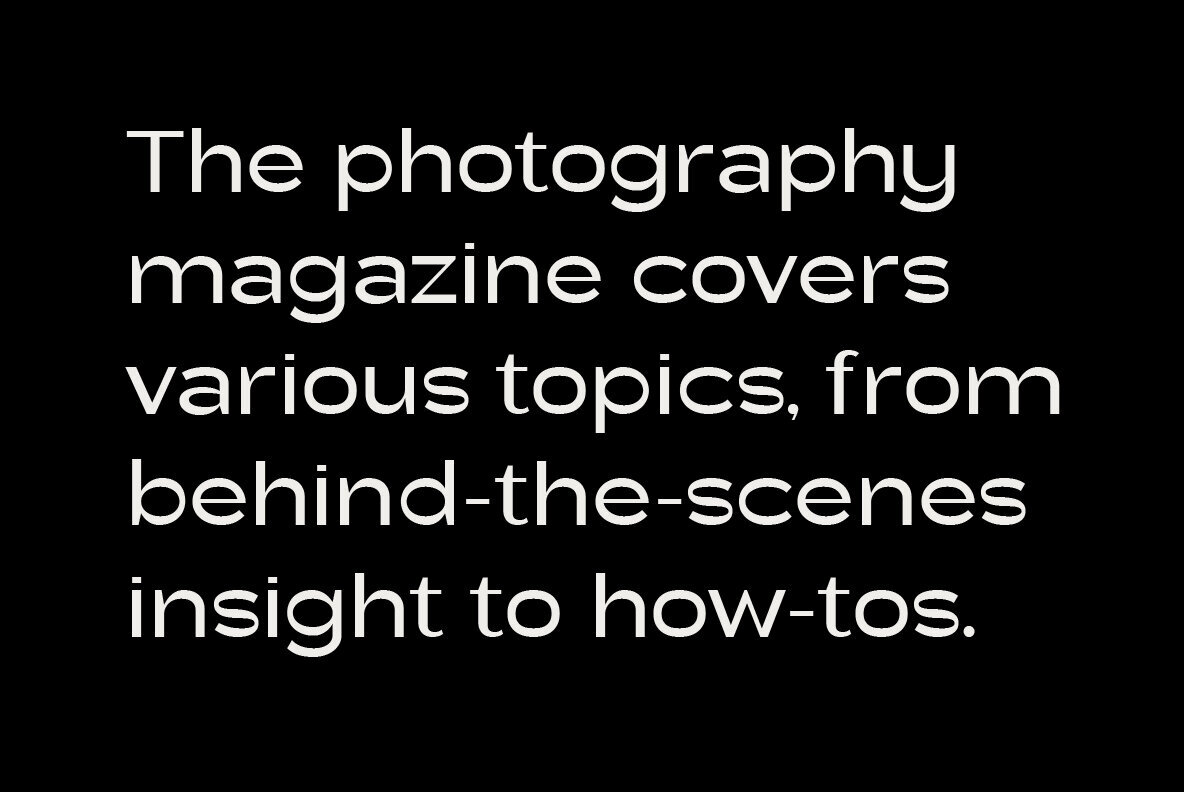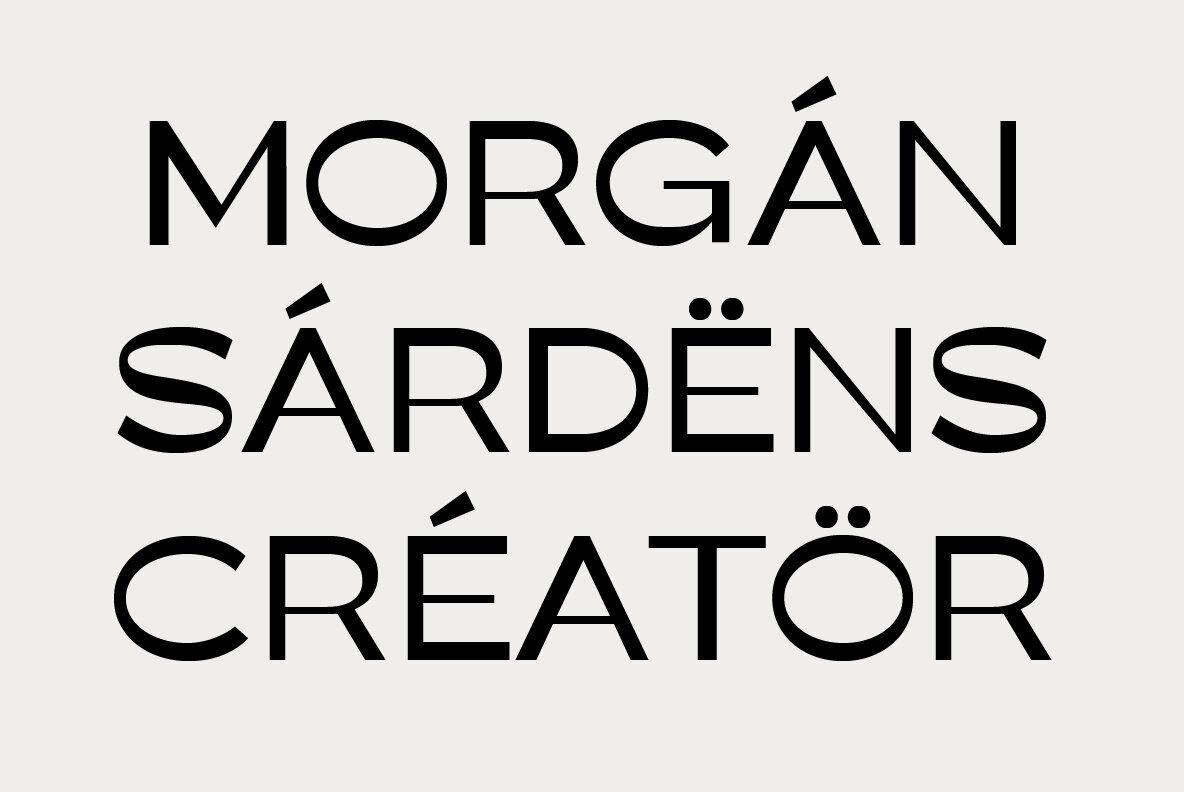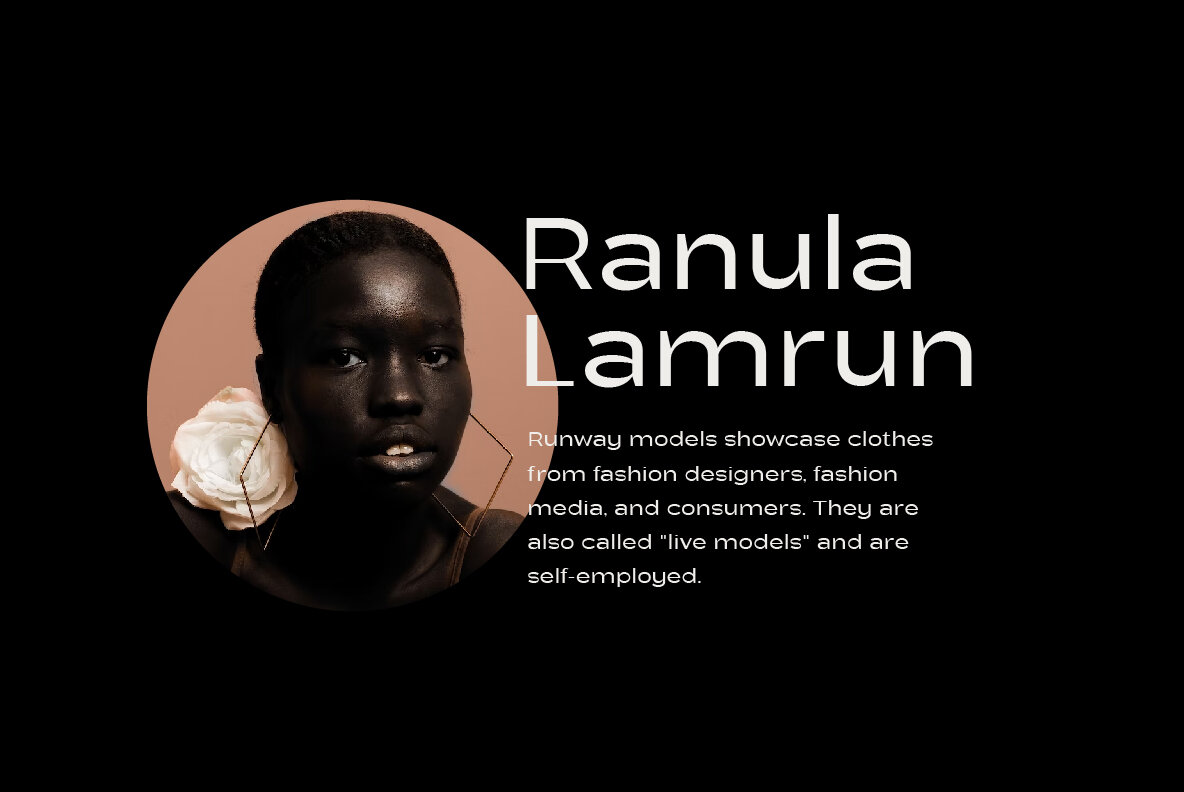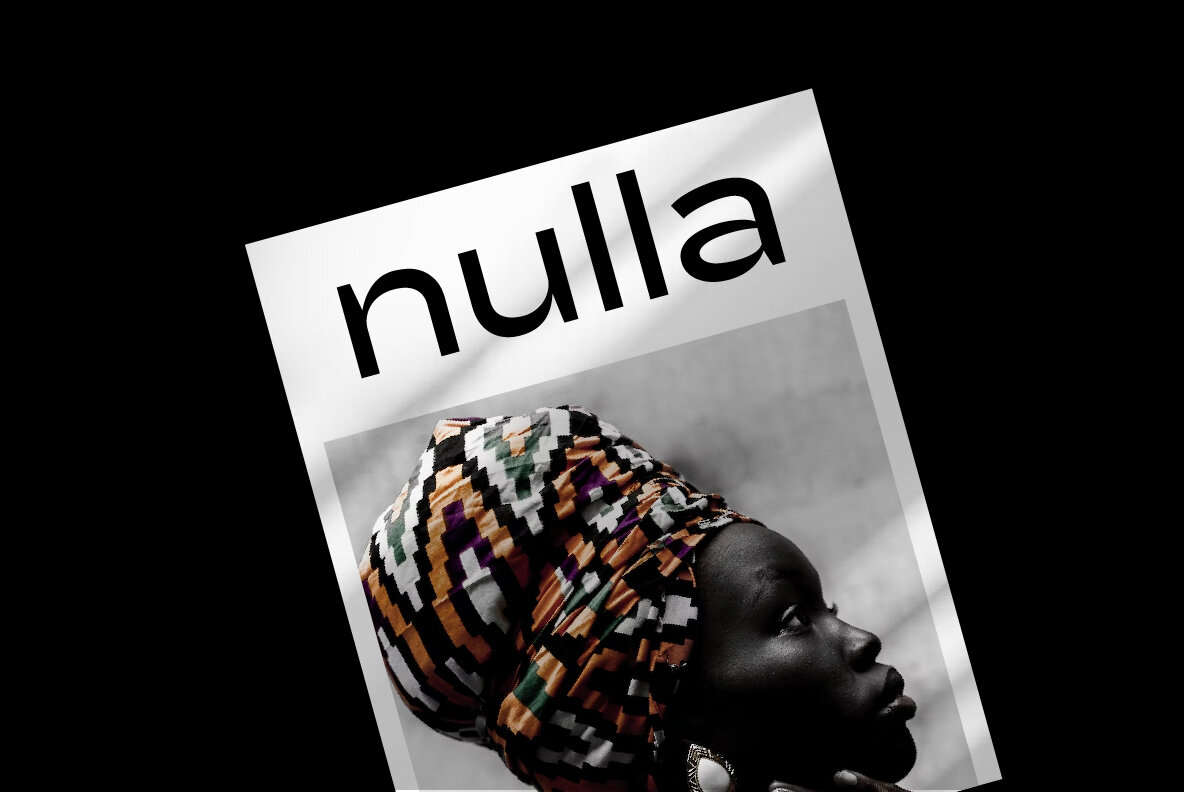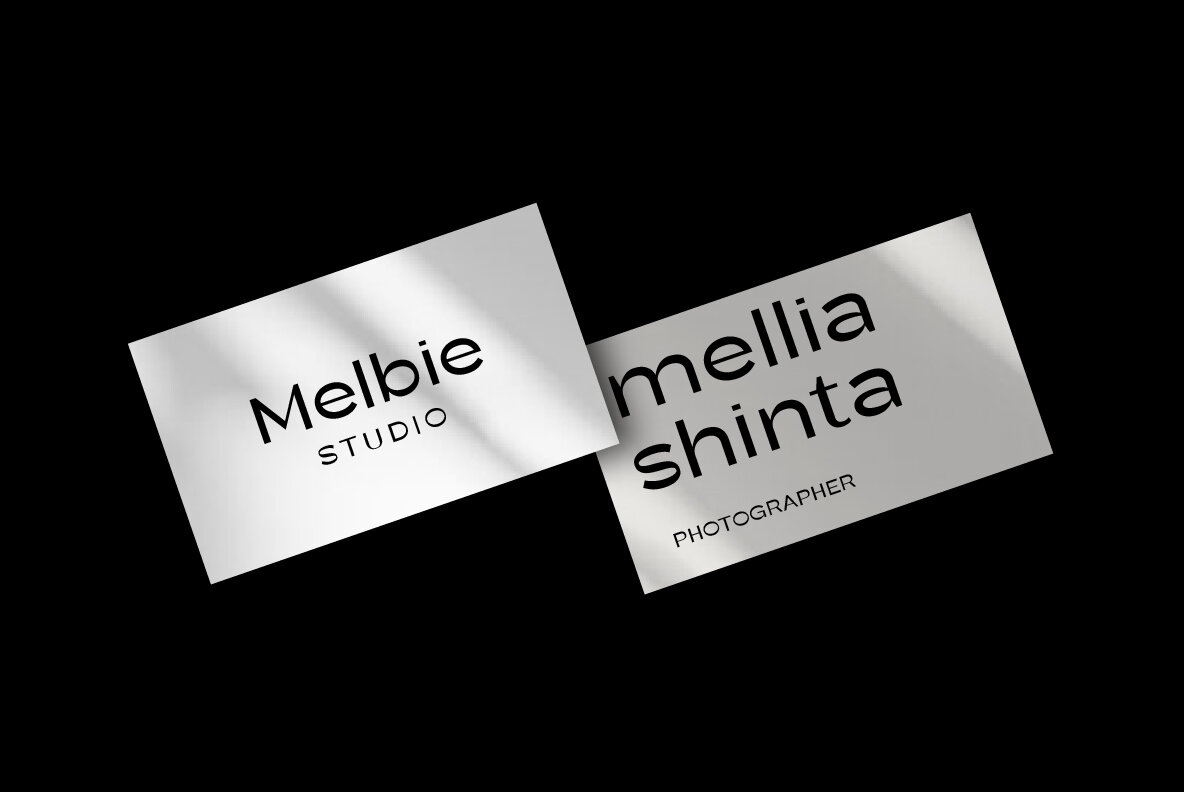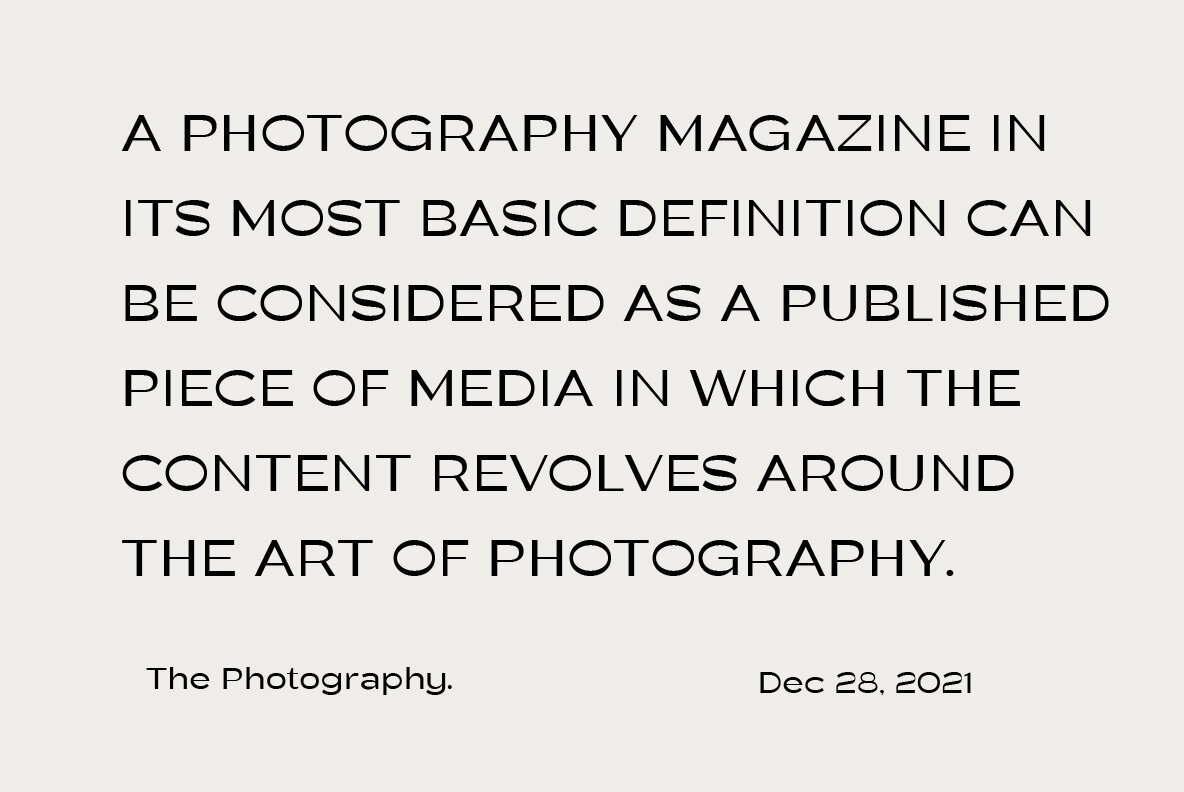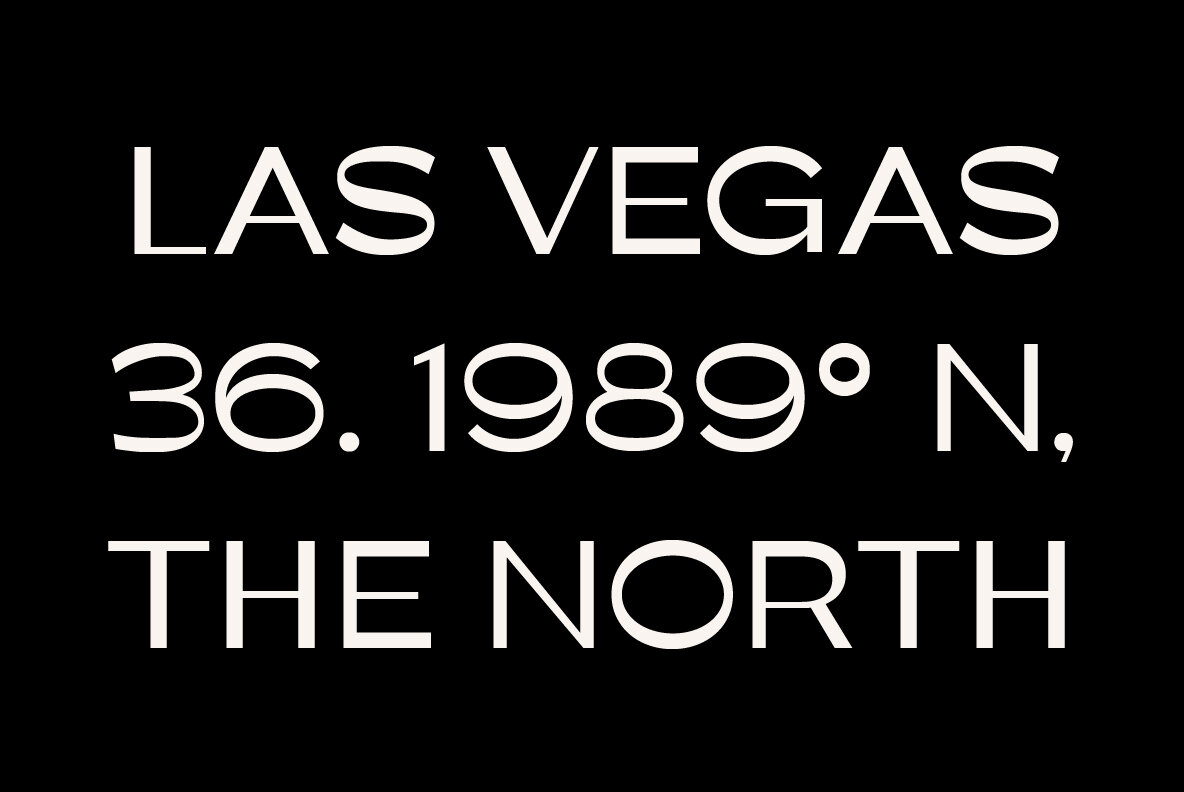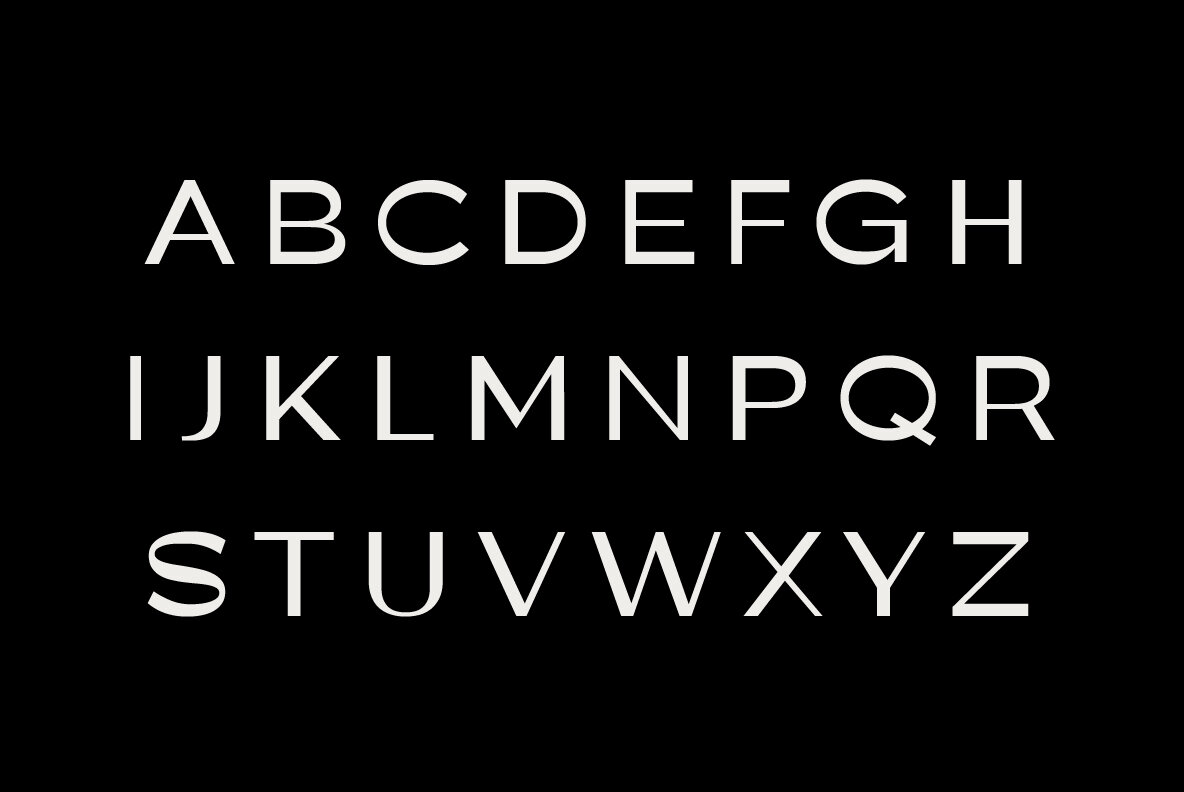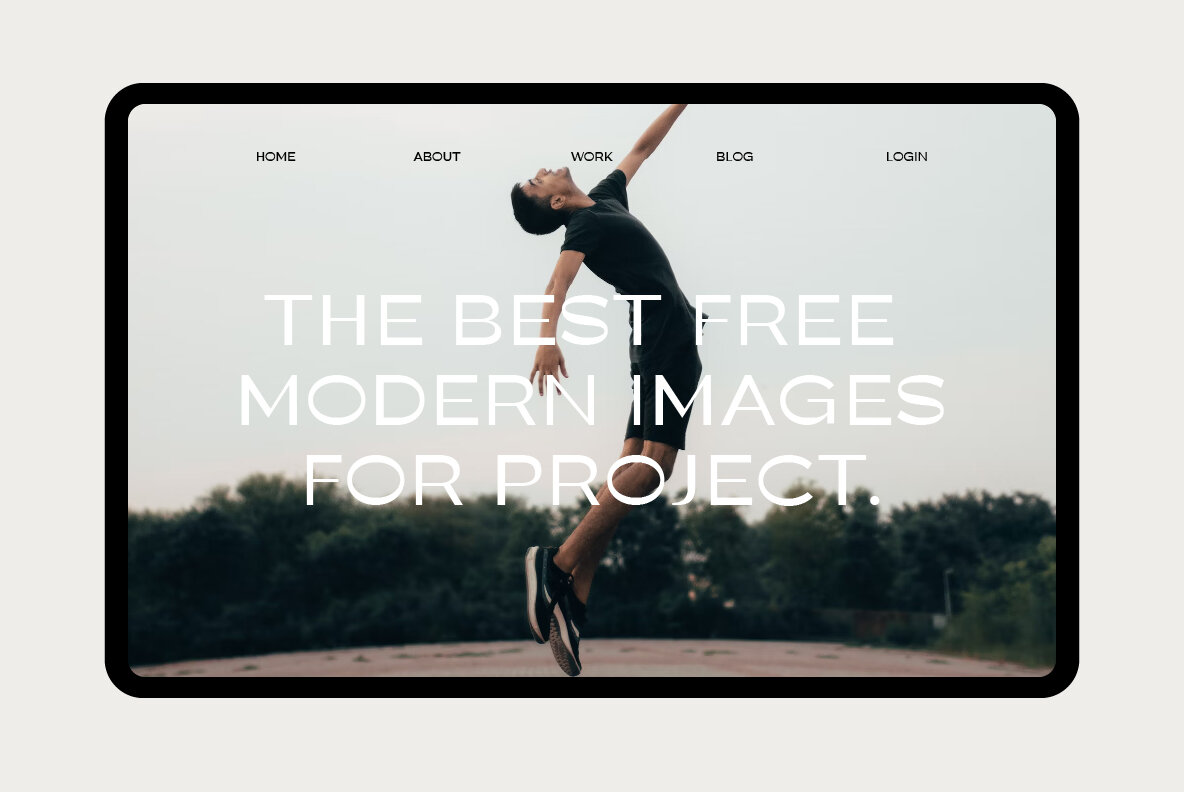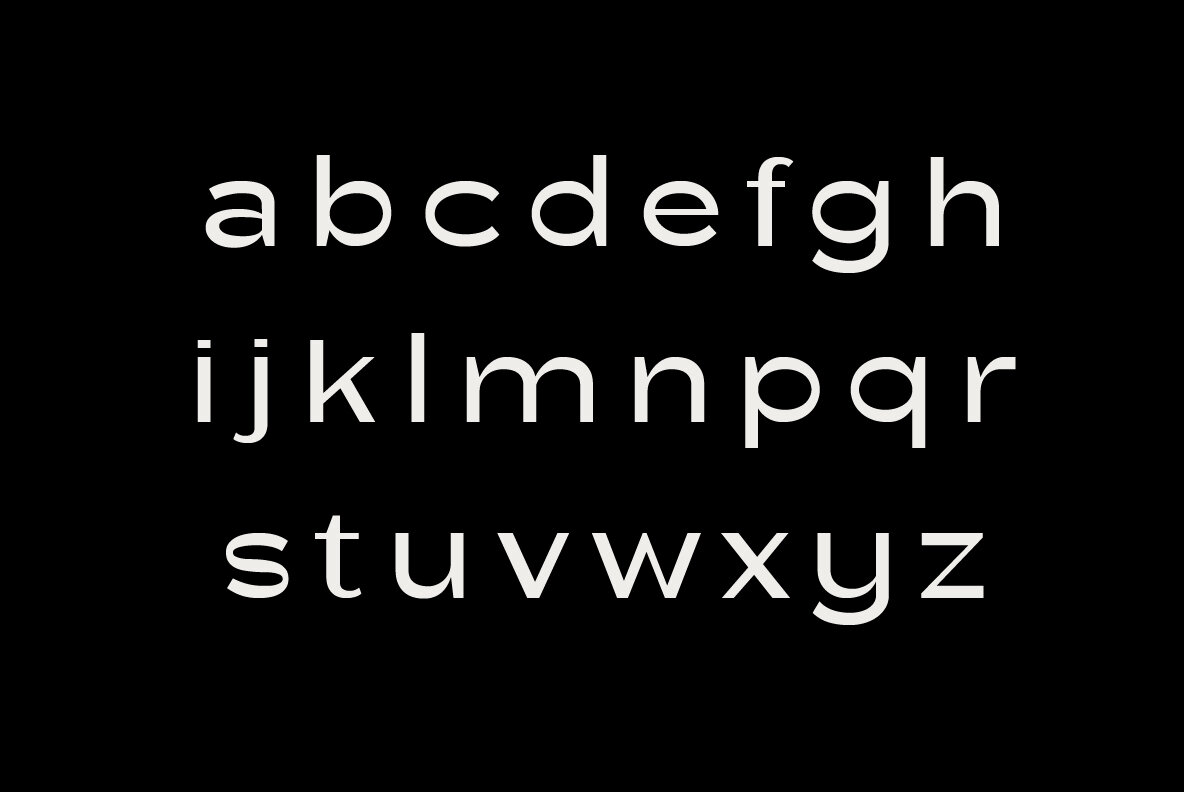
New Gerbil Font
New Gerbil Medium
Introducing New Gerbil Sans Serif Modern, a font with distinctive features such as bold thin lines, strong bold lines, and highly geometric letterforms with sharp corners. Its monochromatic color scheme, with white as the base color, makes it ideal for modern and stylish designs. This font's versatility allows for seamless application across various media, including poster designs, logos, business cards, banners, and other design projects. New Gerbil Sans Serif Modern is a flexible font suitable for an array of design purposes. With its modern and stylish design, this font imparts a luxurious and elegant impression to your creations.